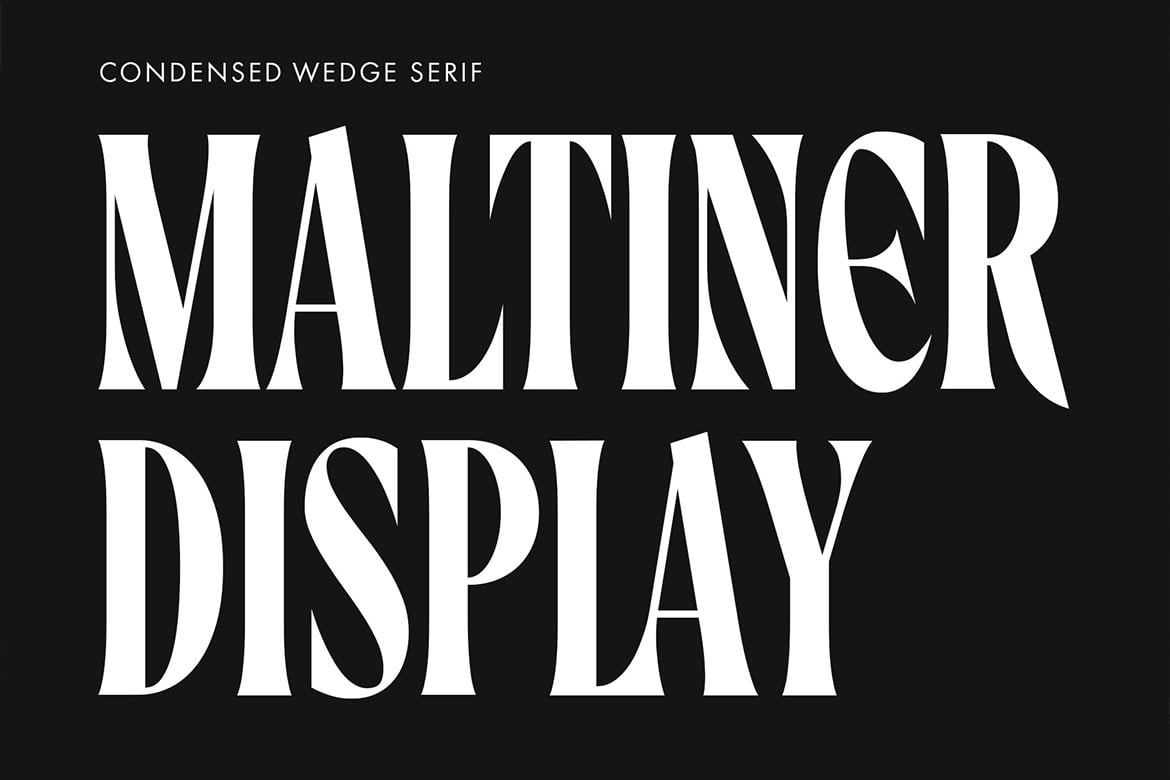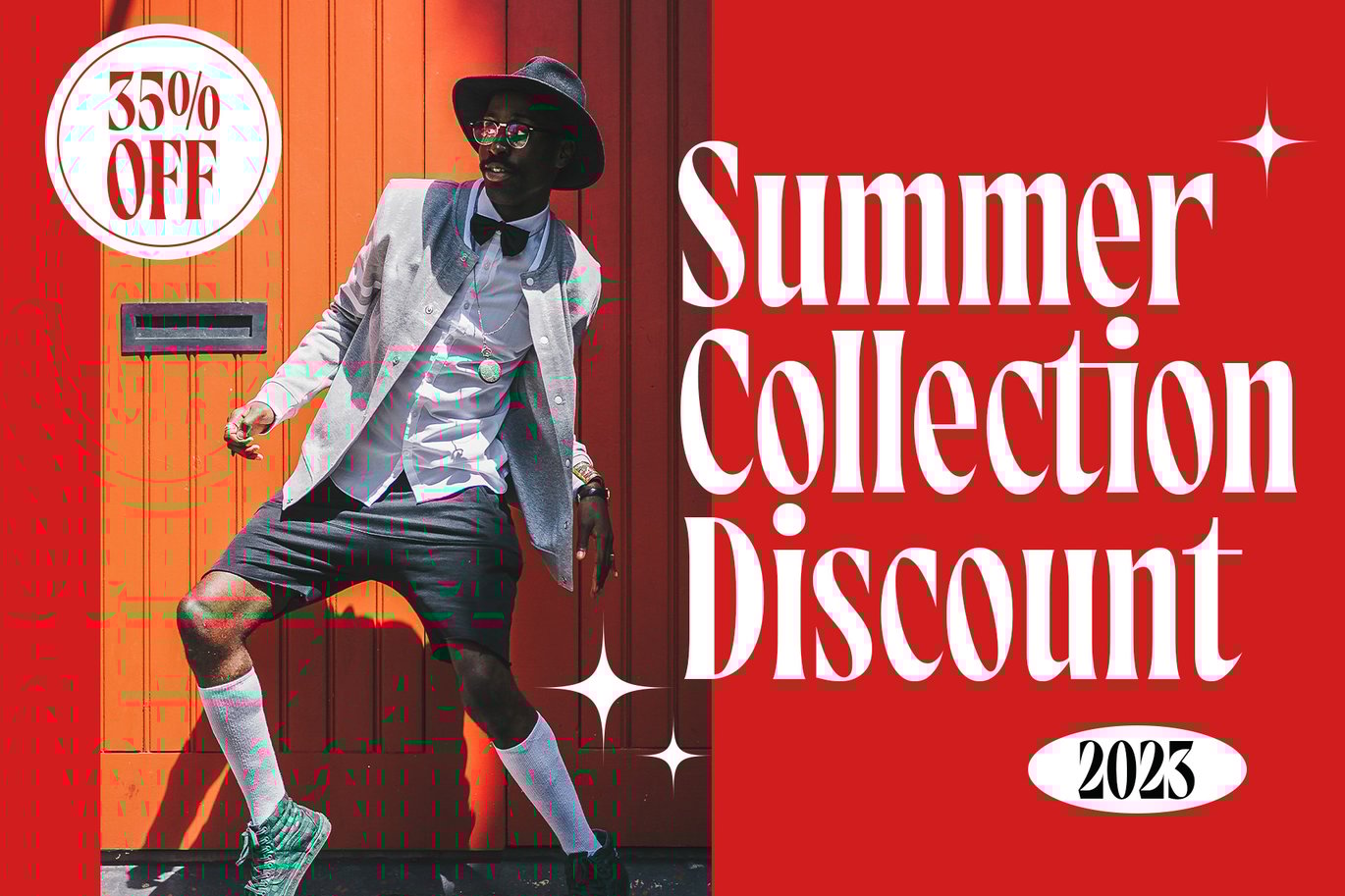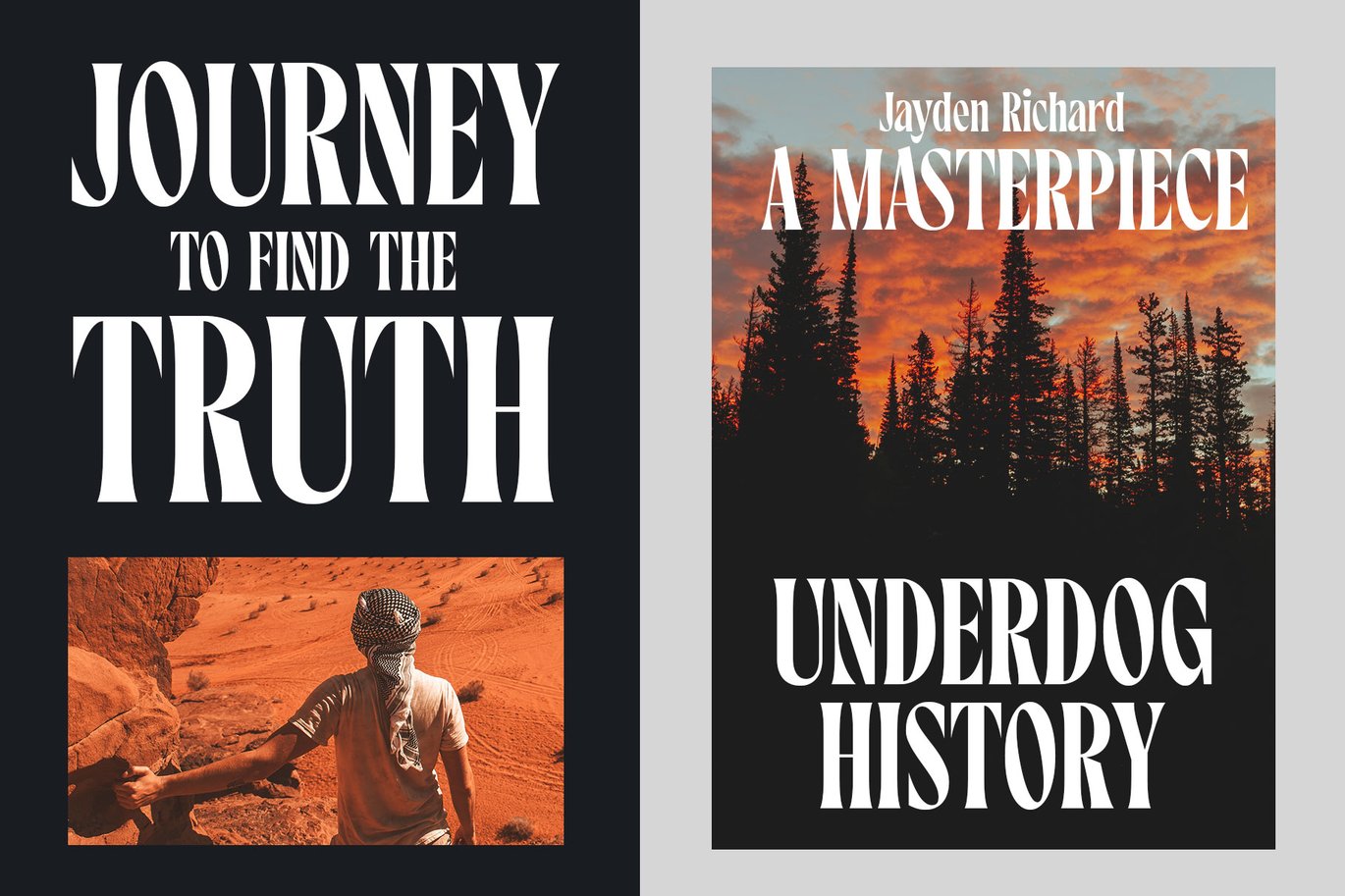
Maltiner Display Font is a versatile typeface ideal for various projects, including Serif, logos, branding, posters, blog headers, advertisements. The free version includes a full set of uppercase and lowercase letters, available in OTF format.
Maltiner Display Font